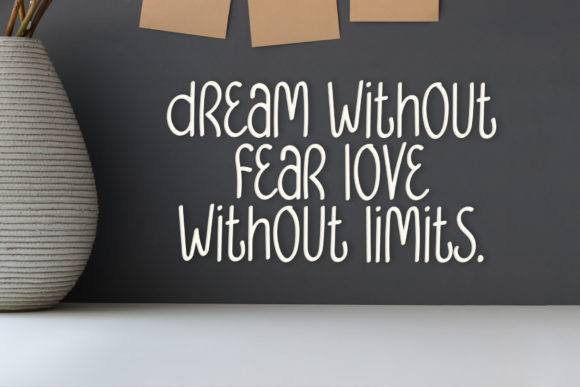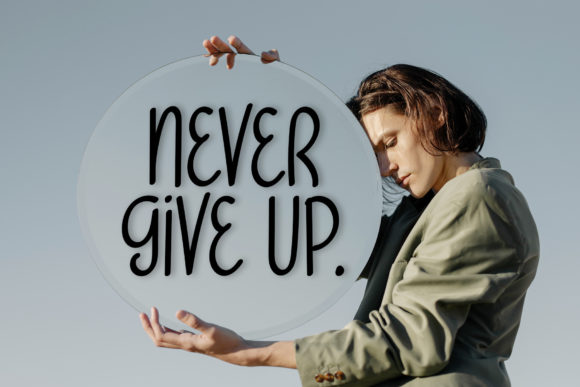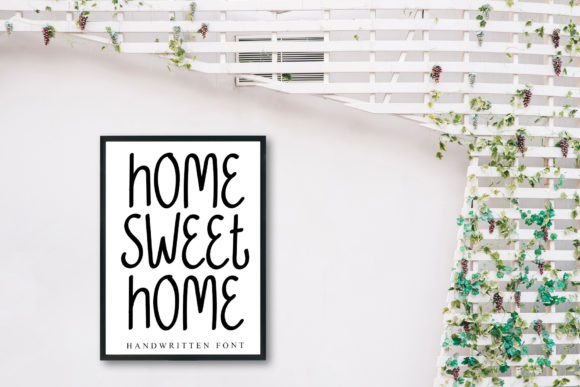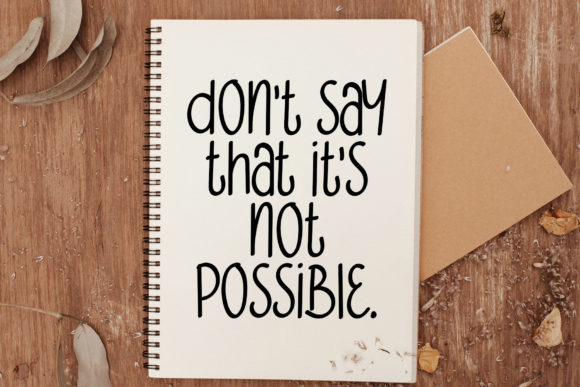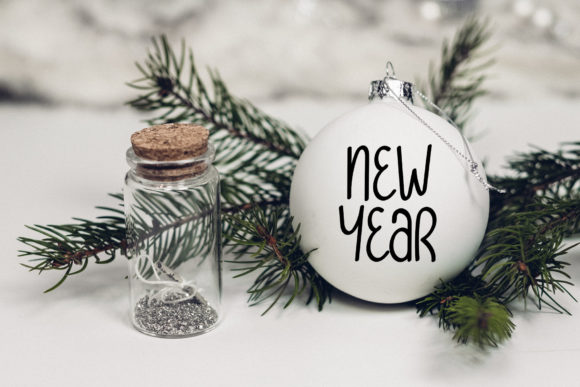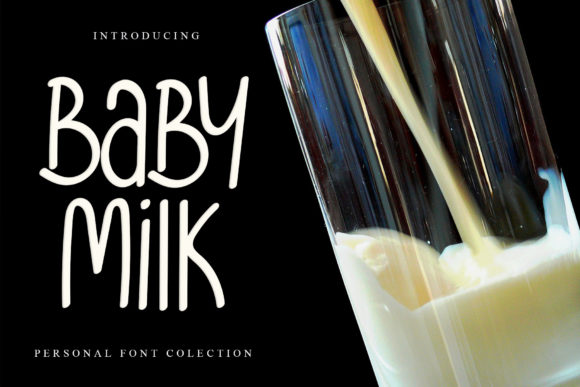
Baby Milk Font: The Sweet and Friendly Handwritten Font for Your Design Needs
Are you a designer or crafter looking for a font that can add a touch of sweetness and friendliness to your designs? Look no further than the Baby Milk Font! This beautiful handwritten font is perfect for a wide range of design projects, from baby-related products to food, lifestyle, and more. In this article, we’ll take a closer look at the Baby Milk Font, its features, and how you can use it to take your designs to the next level.
What is Baby Milk Font?
Baby Milk Font is a sweet and friendly handwritten font that is designed to bring a touch of warmth and personality to your designs. Its natural and unique style makes it incredibly fitting to a large pool of designs, from baby-related products to food, lifestyle, and more. The font is perfect for designers and crafters who want to add a personal touch to their work and create something truly special.
Features of Baby Milk Font
The Baby Milk Font has several features that make it an ideal choice for designers and crafters. Some of its key features include:
- Handwritten style: The Baby Milk Font has a beautiful handwritten style that gives it a personal and unique touch.
- Sweet and friendly: The font has a sweet and friendly feel to it, making it perfect for baby-related products and designs.
- Natural and unique: The font has a natural and unique style that makes it stand out from other fonts.
- Versatile: The Baby Milk Font is incredibly versatile and can be used for a wide range of design projects.
How to Use Baby Milk Font
The Baby Milk Font is easy to use and can be incorporated into a wide range of design projects. Here are some ideas for using the font:
- Baby-related products: The Baby Milk Font is perfect for designing baby-related products such as baby clothes, baby shower invitations, and baby books.
- Food and lifestyle designs: The font can also be used for food and lifestyle designs such as recipe books, food blogs, and lifestyle magazines.
- Stationery and cards: The Baby Milk Font can be used to create beautiful stationery and cards for special occasions.
- Digital products: The font can also be used for digital products such as social media graphics, blog posts, and email newsletters.
Benefits of Using Baby Milk Font
There are several benefits to using the Baby Milk Font in your designs. Some of the benefits include:
- Unique and personalized designs: The Baby Milk Font allows you to create unique and personalized designs that stand out from the crowd.
- Emotional connection: The font’s sweet and friendly style can help create an emotional connection with your audience.
- Versatility: The Baby Milk Font is incredibly versatile and can be used for a wide range of design projects.
- Easy to use: The font is easy to use and can be incorporated into your designs in just a few simple steps.
In conclusion, the Baby Milk Font is a beautiful and versatile handwritten font that is perfect for designers and crafters. Its sweet and friendly style makes it incredibly fitting to a large pool of designs, from baby-related products to food, lifestyle, and more. With its unique and personalized style, the Baby Milk Font is sure to take your designs to the next level. So why wait? Download the Baby Milk Font today and start creating your own unique and personalized designs!
The only limit is your imagination! With the Baby Milk Font, you can create anything you can think of. So don’t be afraid to get creative and experiment with different design ideas. Whether you’re a seasoned designer or a beginner, the Baby Milk Font is the perfect choice for anyone looking to add a touch of sweetness and friendliness to their designs.